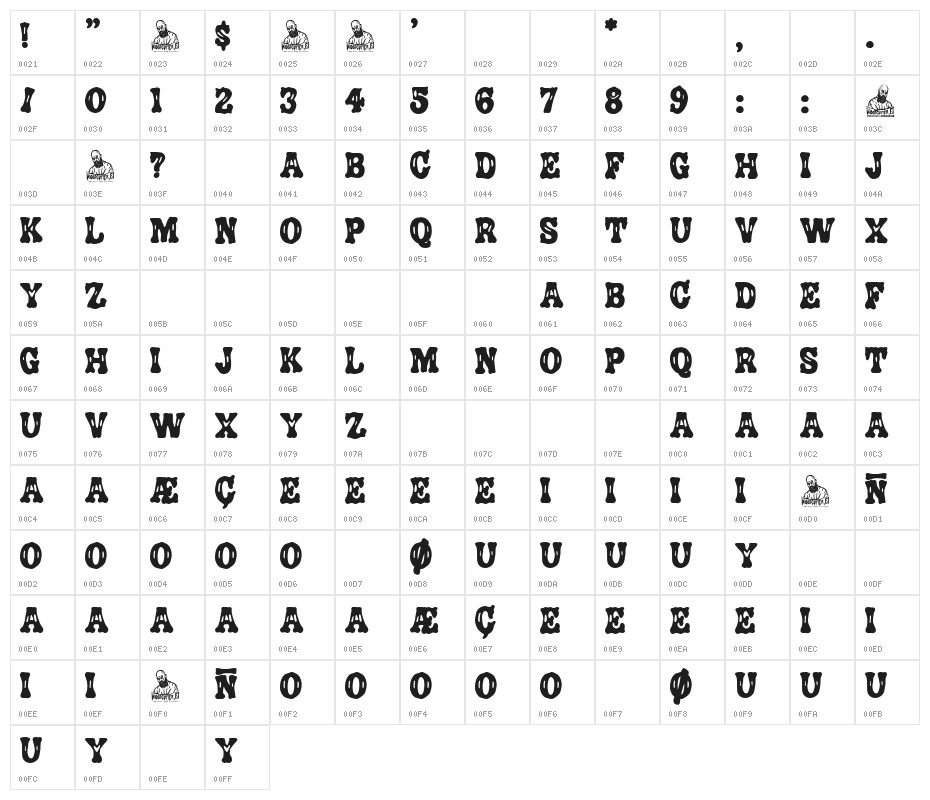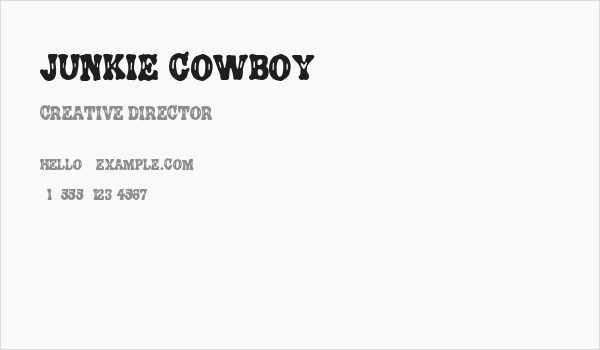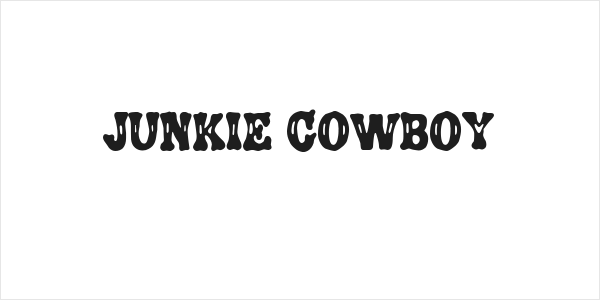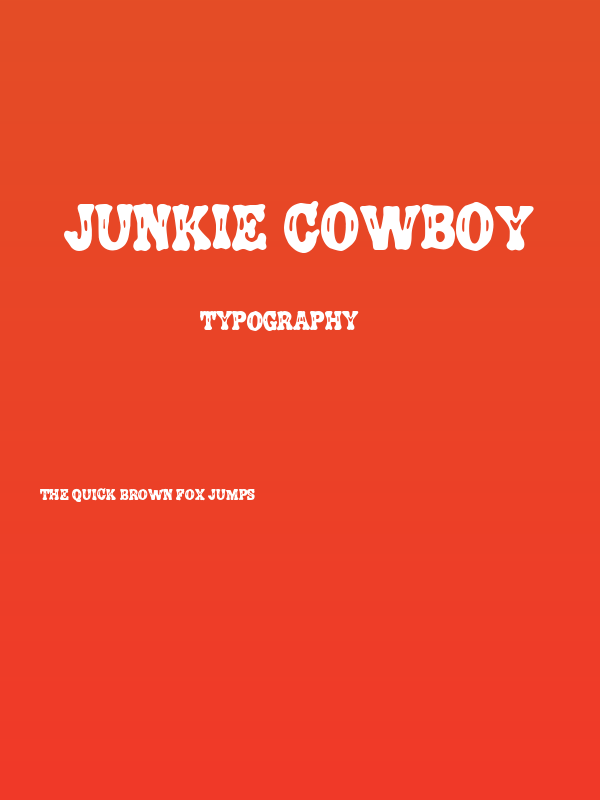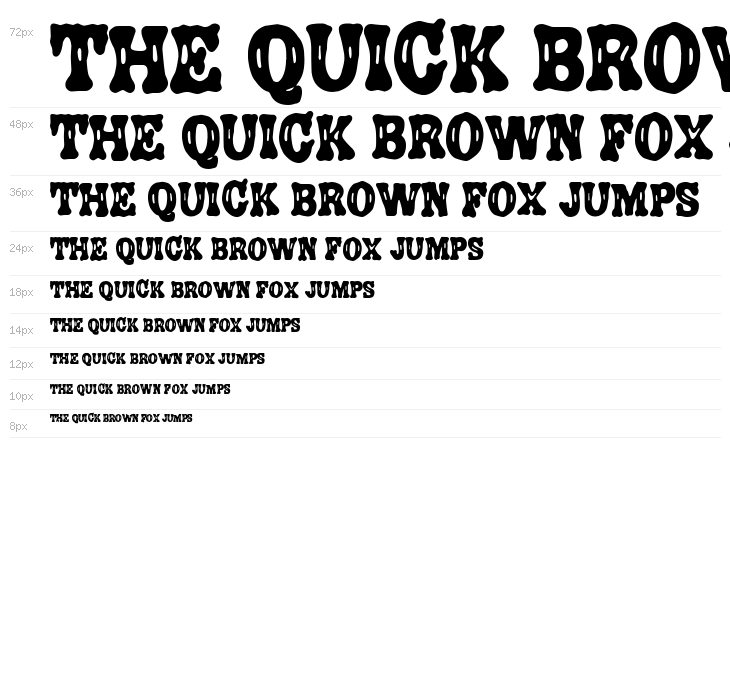
Junkie Cowboy Font
Junkie Cowboy Description
A bold, decorative display font with irregular, blobby edges and a playful, western-inspired style. The characters are uppercase with exaggerated, uneven contours, giving a rugged and quirky appearance. Numerals and punctuation follow the same bold, organic look.
| Overall Style | Decorative, Western, Playful |
| Use Case | Headlines, Posters, Logos, Themed Graphics |
| Proposed Projects | Posters, event flyers, themed party invitations, signage, branding for western or playful products. |